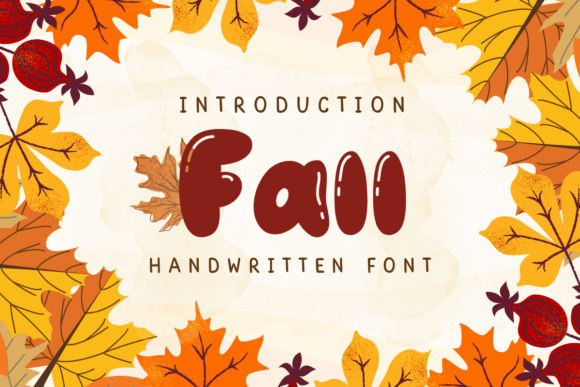
Embracing the Cozy Charm of Fall Font
As the leaves begin to change and the air grows crisp, many of us find ourselves reaching for our favorite pens and paper to capture the essence of the season. There’s something special about putting pen to paper, feeling the weight of the ink, and watching your thoughts and ideas come to life. And for designers, this tactile experience is especially meaningful, as it allows us to connect with our creative process in a way that’s both personal and professional.
One font that perfectly captures the spirit of the season is Fall Font, a beautiful handwritten font that’s perfect for taking notes, writing a diary, or making greeting cards. Its warm, inviting aesthetic makes it a valuable asset for designers looking to add a touch of coziness and personality to their work.
Whether you’re creating banners, content, or social media posts, Fall Font is a versatile and stylish choice that’s sure to add a touch of fall magic to your designs.
Fall Font Key Features
- Font Family: Fall Font is a sans-serif font family, designed to evoke a sense of autumn and coziness.
- Character Set: Includes a wide range of characters, including Latin, Cyrillic, and Greek alphabets, as well as punctuation and symbols.
- Unique Characteristics: Fall Font features a distinctive, hand-drawn feel, with subtle irregularities and imperfections that give it a warm, organic look.
- Style Variations: Includes 6 different font styles, ranging from light and airy to bold and dramatic, allowing users to customize their design to suit their needs.
Designer Review: Fall Font
Overall, I was excited to dive into “Fall Font”, but my experience was a mixed bag. Let’s start with what works well:
- ✨ The font has a clear autumnal theme, with a warm and inviting feel that’s perfect for seasonal projects.
- ✨ The font is highly legible, making it easy to read even at smaller font sizes.
- ✨ The font supports a wide range of languages, making it a great choice for international projects.
- ⚠️ The font is quite limited in terms of style options – it’s mostly a single font family with some weight variations.
- ⚠️ The font doesn’t include any bold or italic styles, which can be a problem for projects that require emphasis.
- ⚠️ The font’s design is quite generic, which may not stand out in a crowded market.
Overall, I’d say “Fall Font” is a solid choice for simple projects that require a seasonal feel. However, for more complex projects or those that require a lot of customization, you may want to consider other options.
Tips for Getting the Most Out of Fall Font
Use Fall Font to create a cozy and inviting atmosphere in your designs.
Pair Fall Font with warm and earthy colors to enhance its autumnal theme.
Experiment with different font sizes and styles to create a sense of depth and hierarchy in your designs.
Use Fall Font in invitations, flyers, and brochures for autumn-themed events.
Apply Fall Font to product packaging and branding for seasonal products.
Use Fall Font in social media graphics and blog posts to create a festive atmosphere during the fall season.